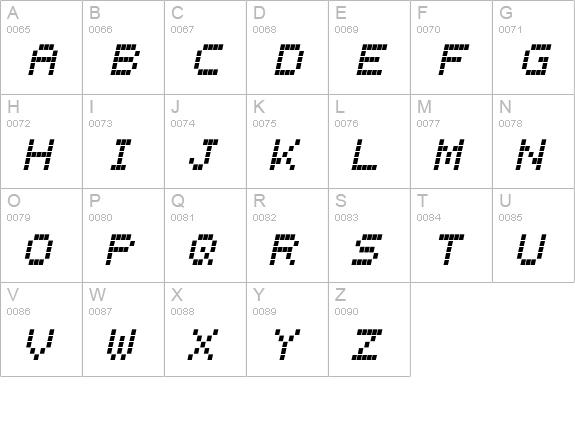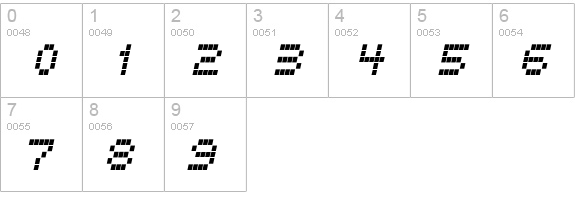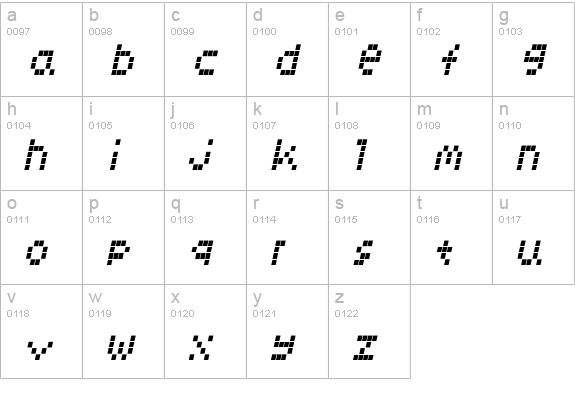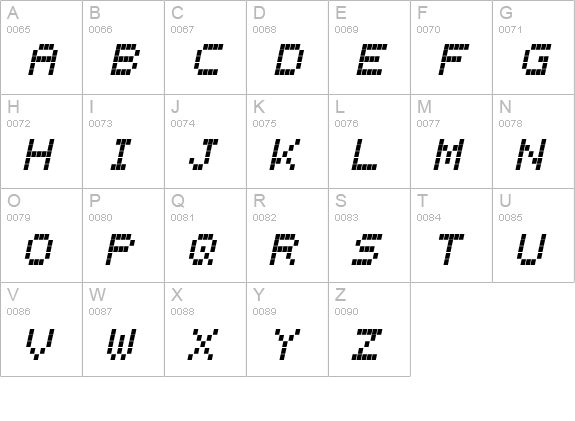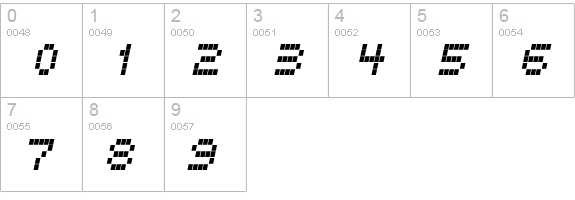
LCD Italic Font Details
LCD Italic is a distinctive, italic variant in the LCD typeface family \xE2\x80\x94 well suited to design and typography projects.
Introducing the stunning and elegant LCD Italic font, a truly captivating typeface that will take your designs to the next level. This font boasts a unique combination of modernity and sophistication, making it perfect for any project that requires a touch of class. LCD Italic font features sleek and sleekly styled letterforms with a slight slant, giving it a distinct and eye-catching appearance. The italicized design adds a sense of dynamism and movement to your text, making it perfect for headlines, titles, logos, and any other design element that needs to grab attention. Not only does LCD Italic font offer exceptional visual appeal, but it also provides versatility and functionality. With a wide range of glyphs available, including uppercase and lowercase letters, numerals, punctuation, and special characters, this font allows you to effortlessly bring your creative visions to life. One of the best things about LCD Italic font is that it is freely available to download at FontsMarket.com. That's right, you can enhance your designs with this incredible font without breaking the bank. Whether you're a professional designer or a hobbyist, this font is the perfect addition to your font library. So why wait? Elevate your designs with LCD Italic font and let its sleek and sophisticated aesthetic make a lasting impression. Download it for free at FontsMarket.com today and unlock a world of design possibilities.